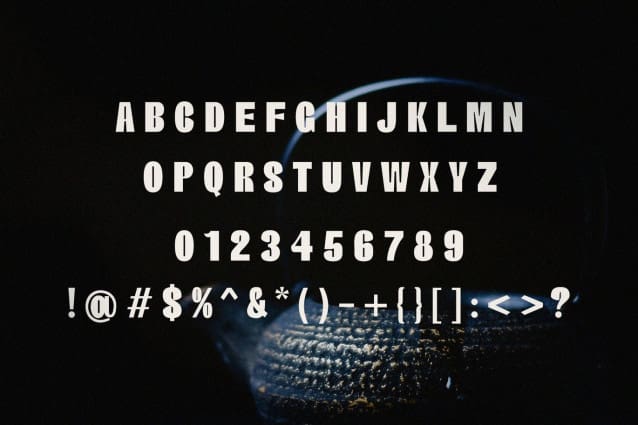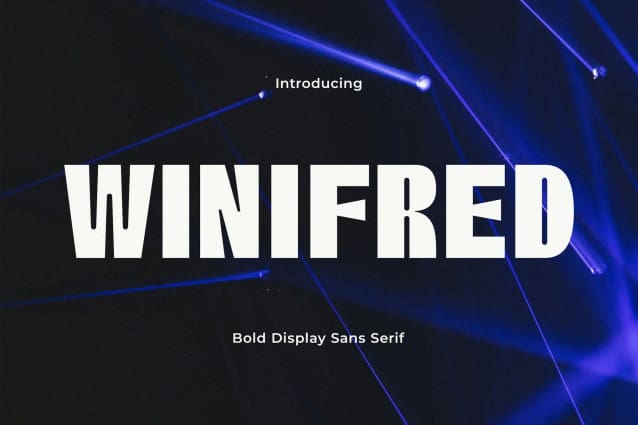
Winifred Font
Winifred Font is a unique sans serif display font that combines classic and modern elements. Its bold and confident strokes make it ideal for conveying a strong and assertive message. With its distinctive character, Winifred is sure to set your designs apart from the competition.